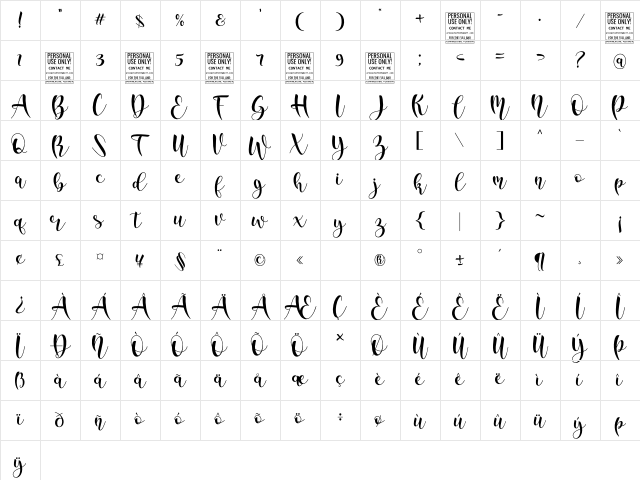
Water Splash flows with the natural rhythm of handwritten lettering, making it ideal for designs that call for warmth and personal expression.
Font Pairing: Combine Water Splash with a simple geometric sans for maximum contrast - the tension between flowing curves and clean structure is a classic typographic pairing.
Pro Tip: Use Water Splash for short runs of text - names, titles, or taglines. Extended body copy in script faces tires the eye quickly.